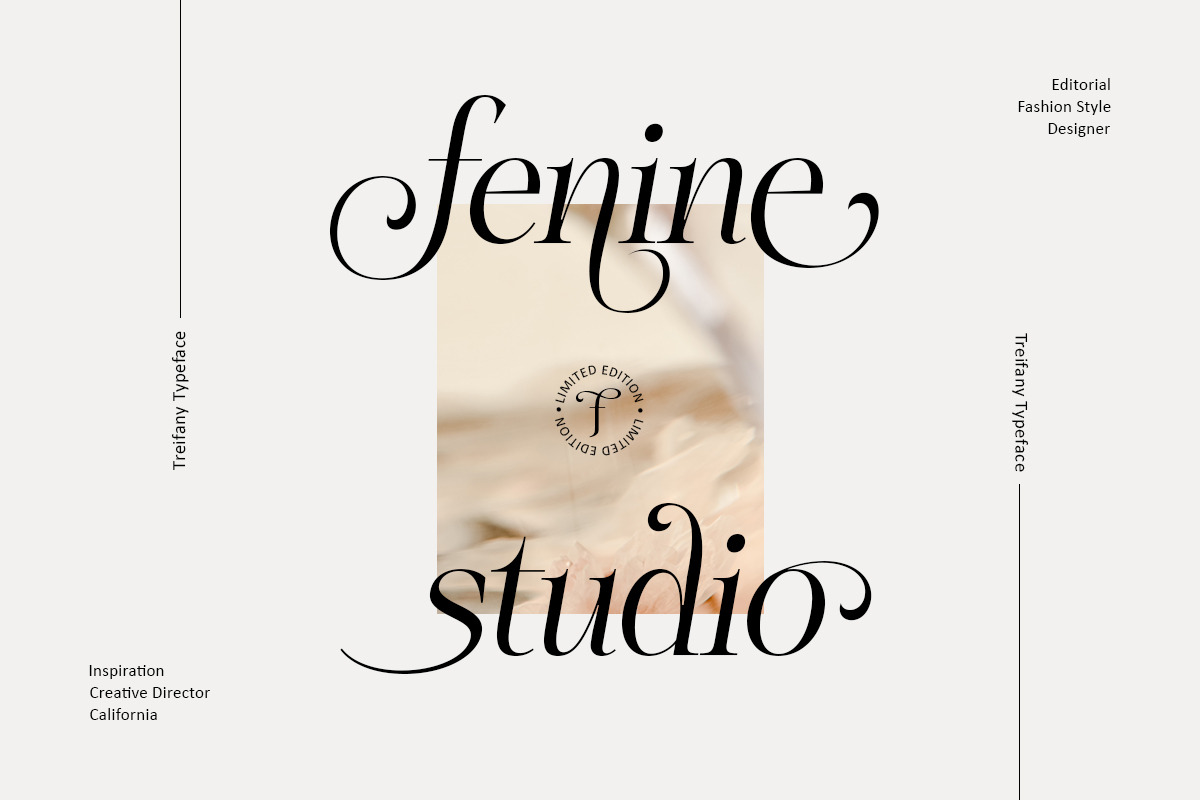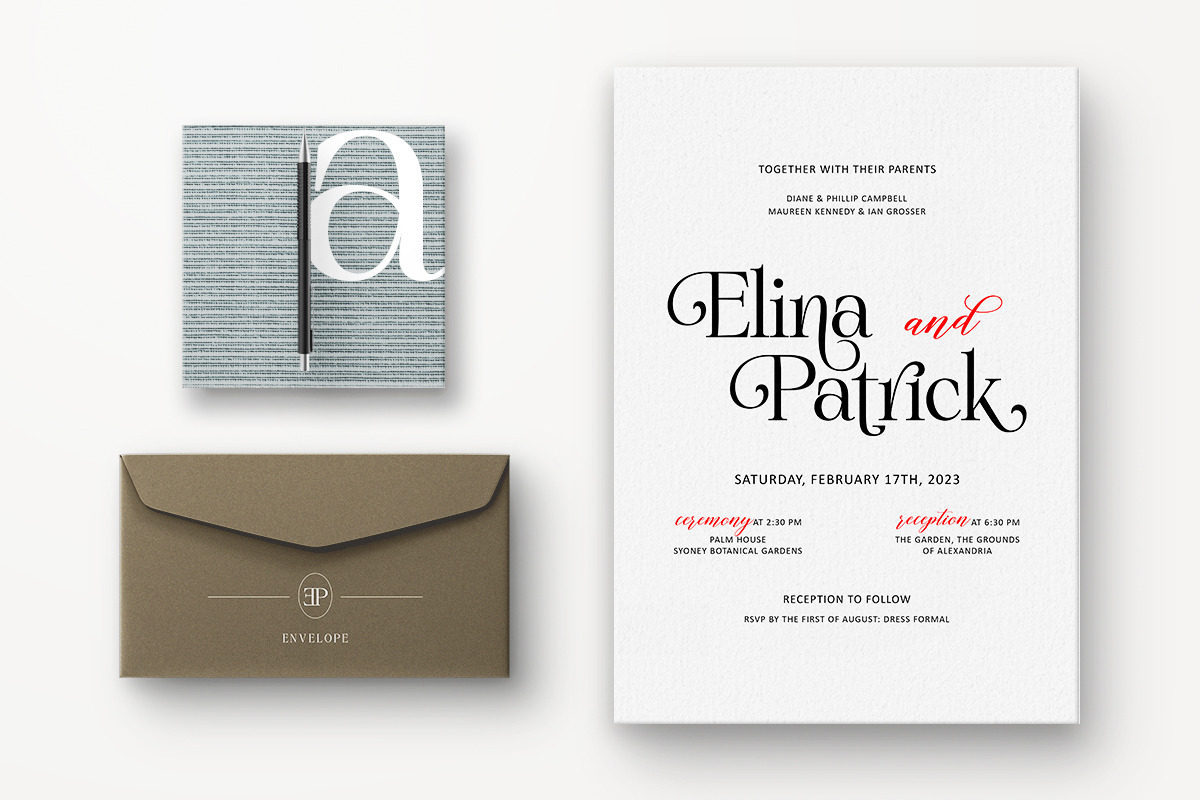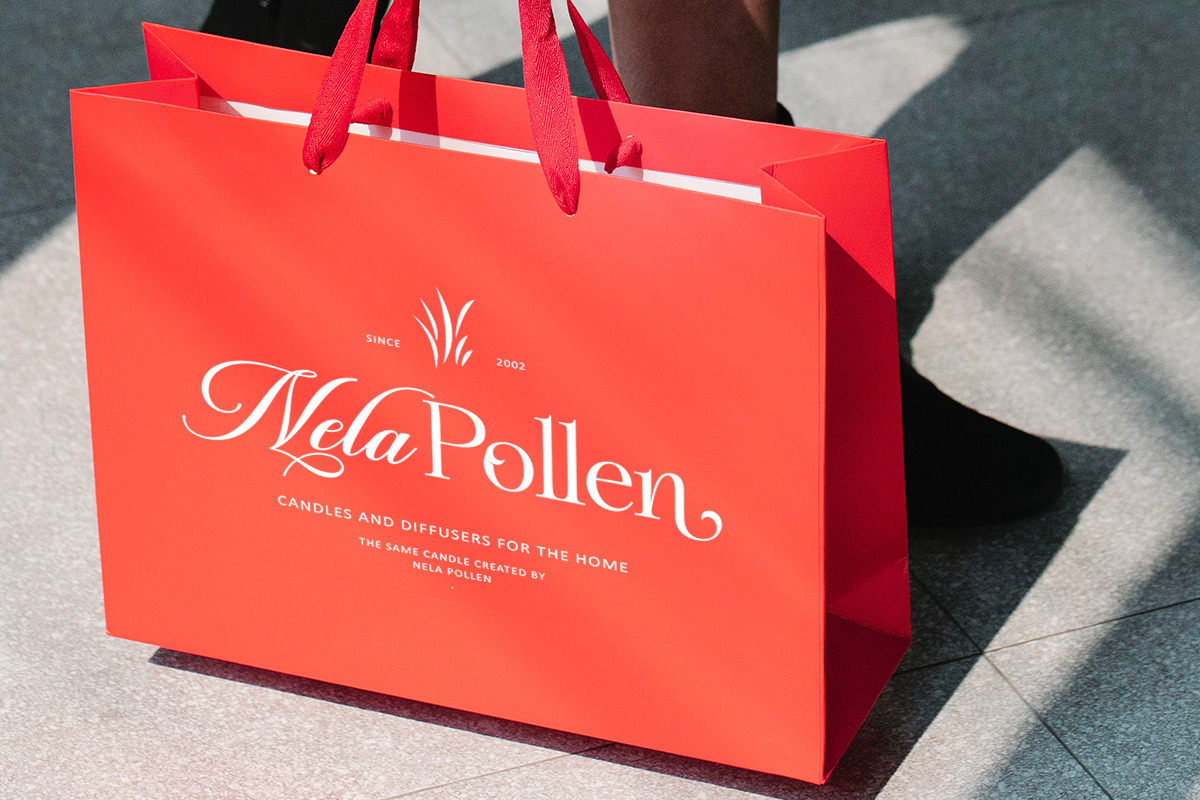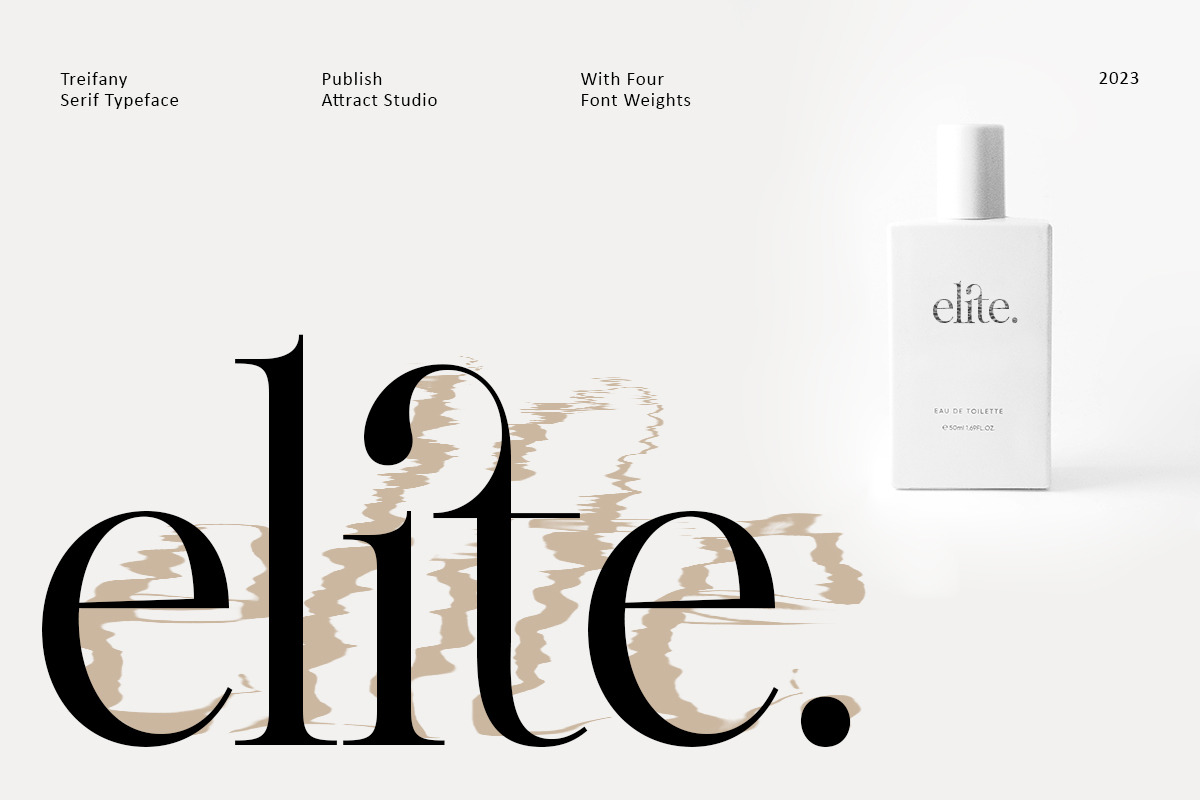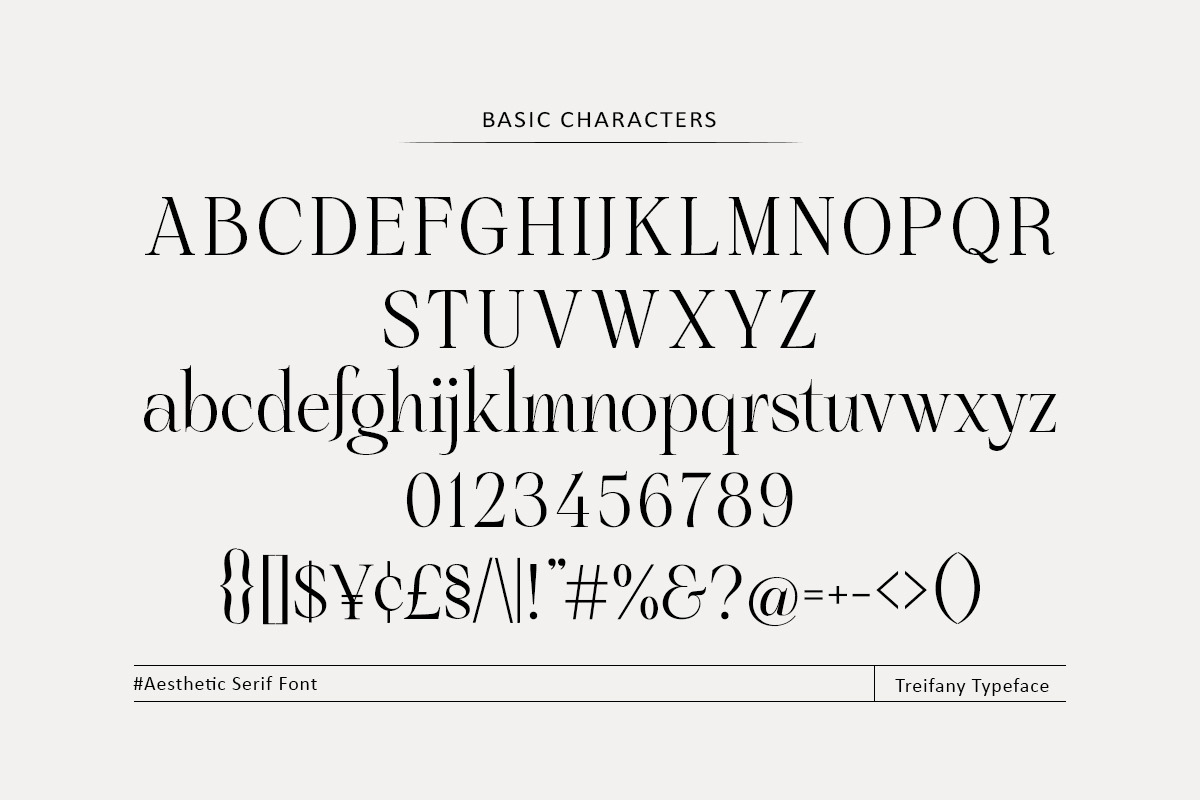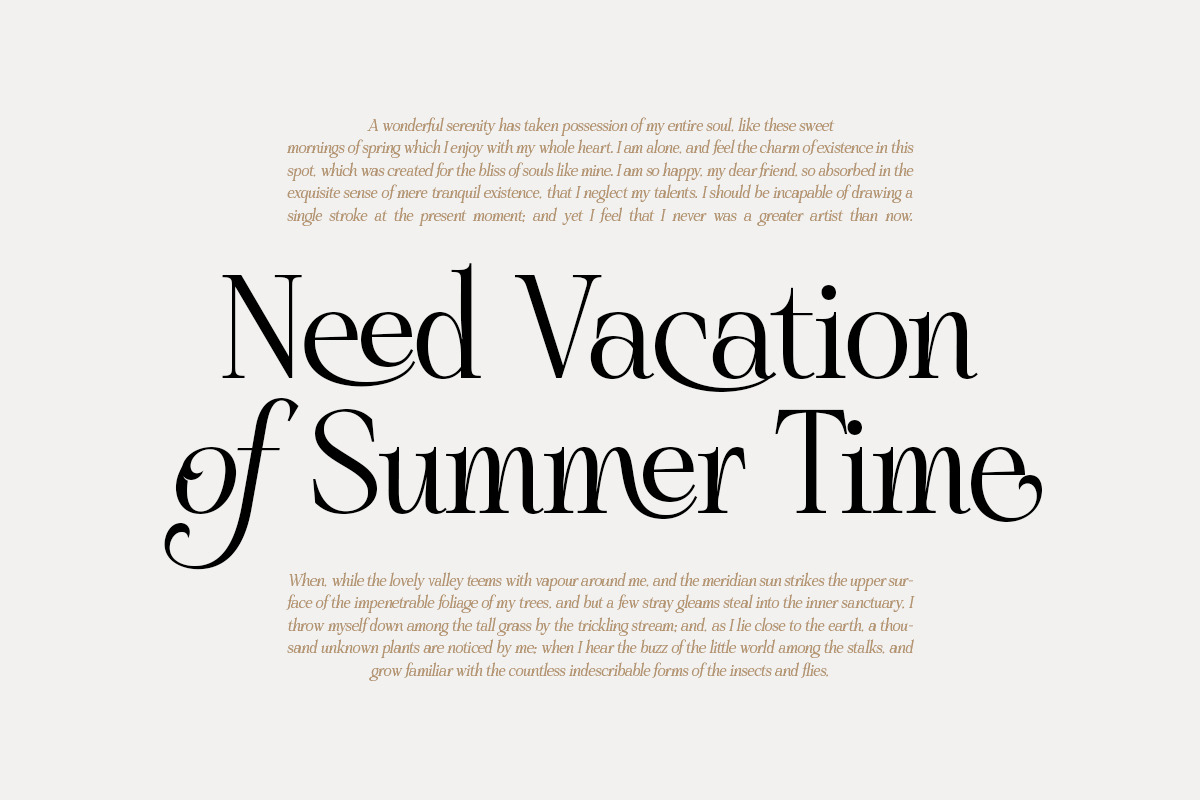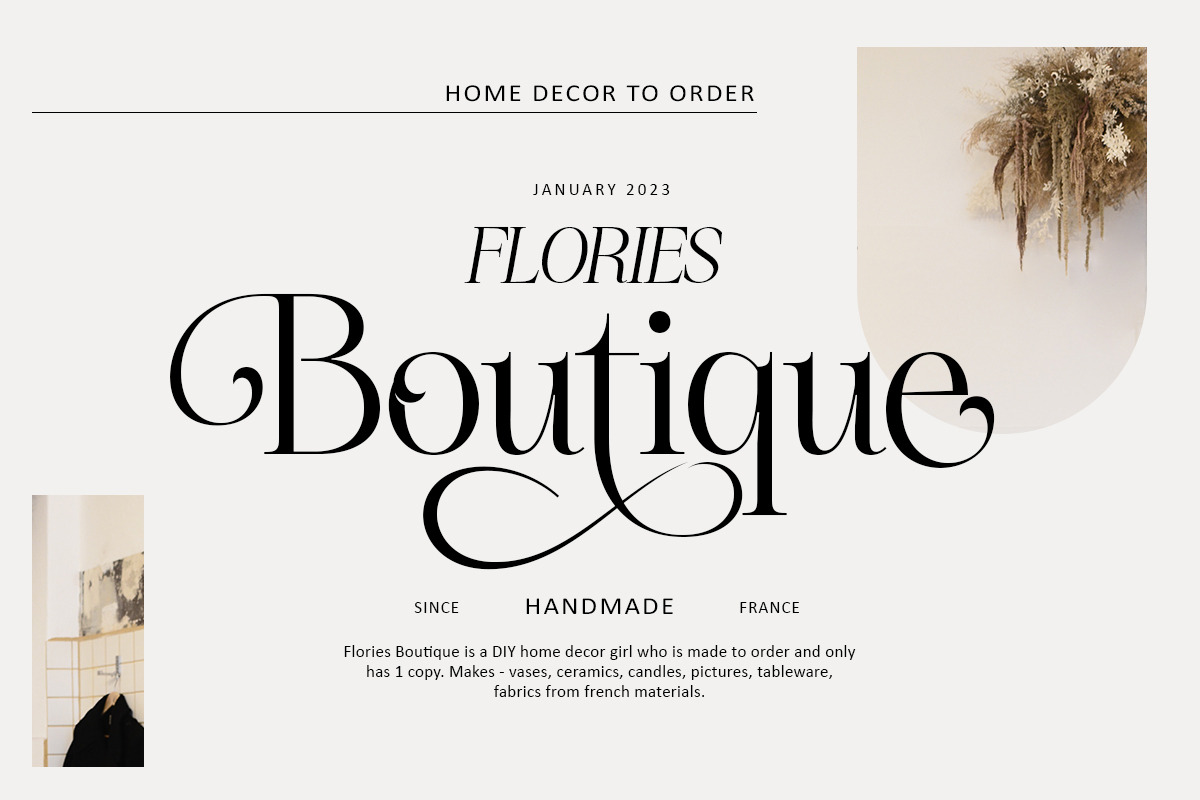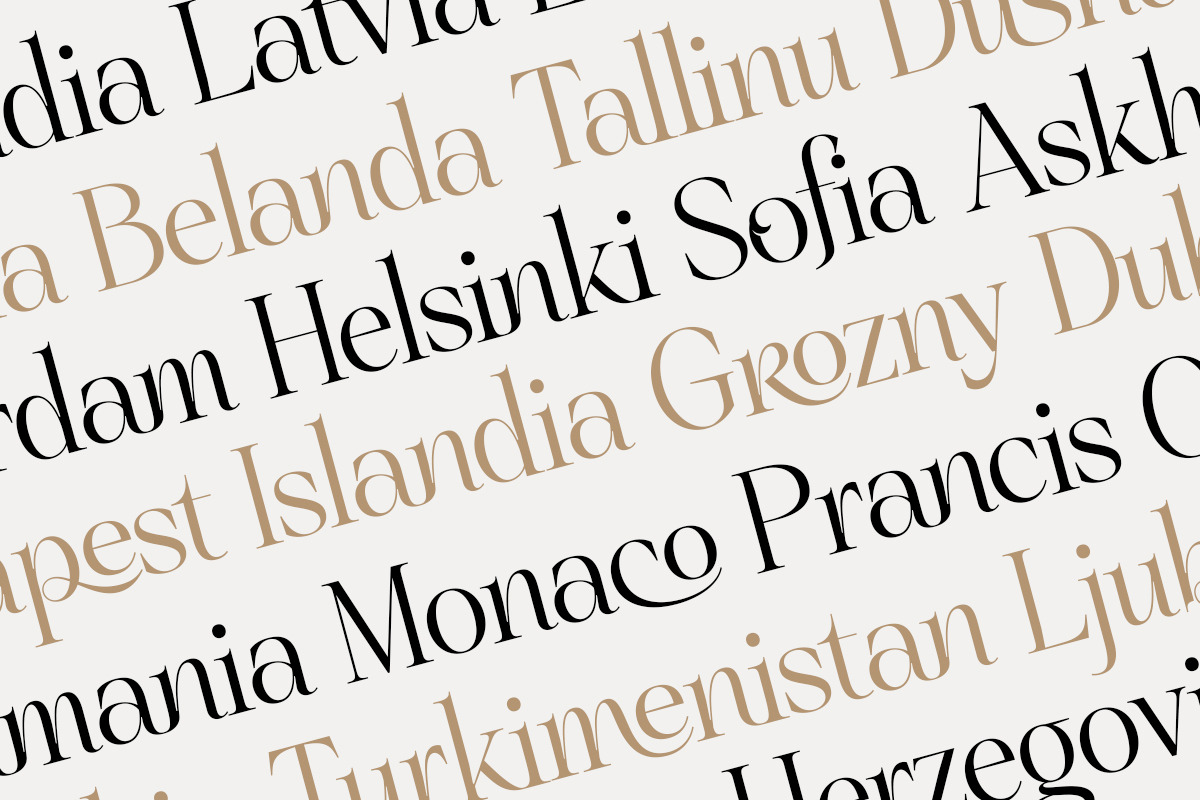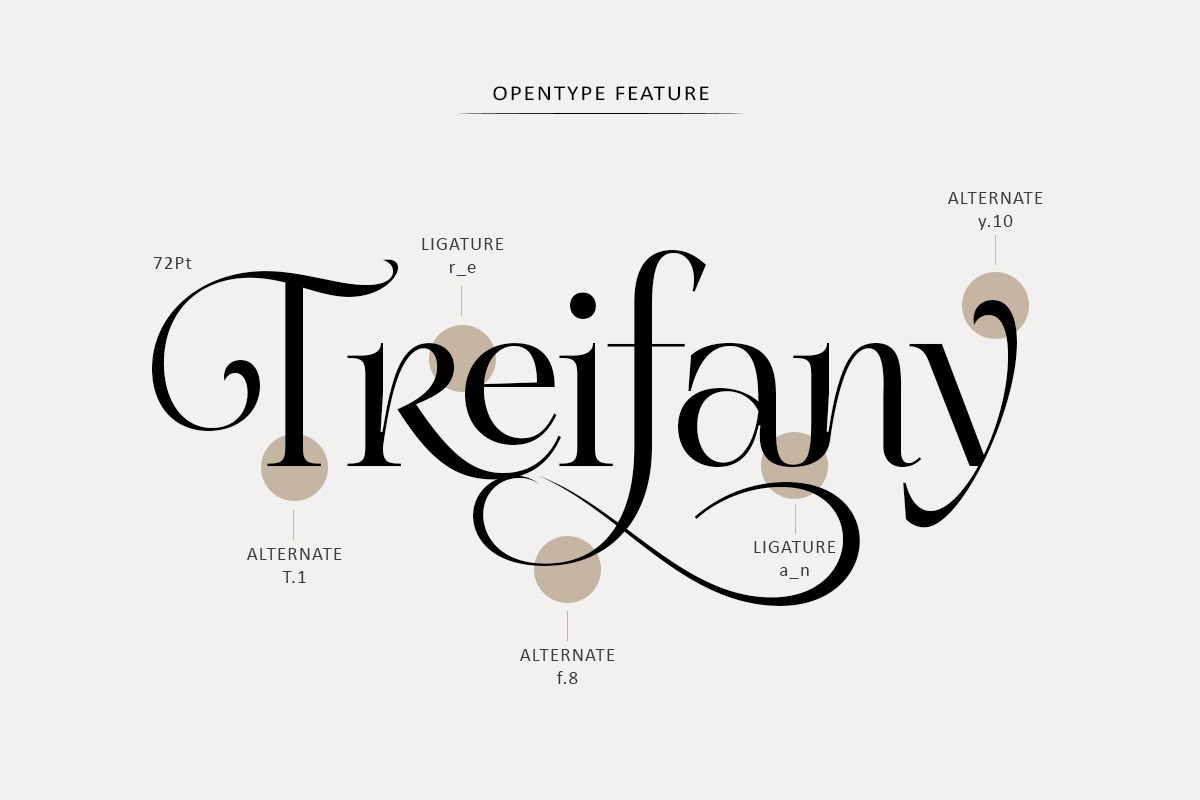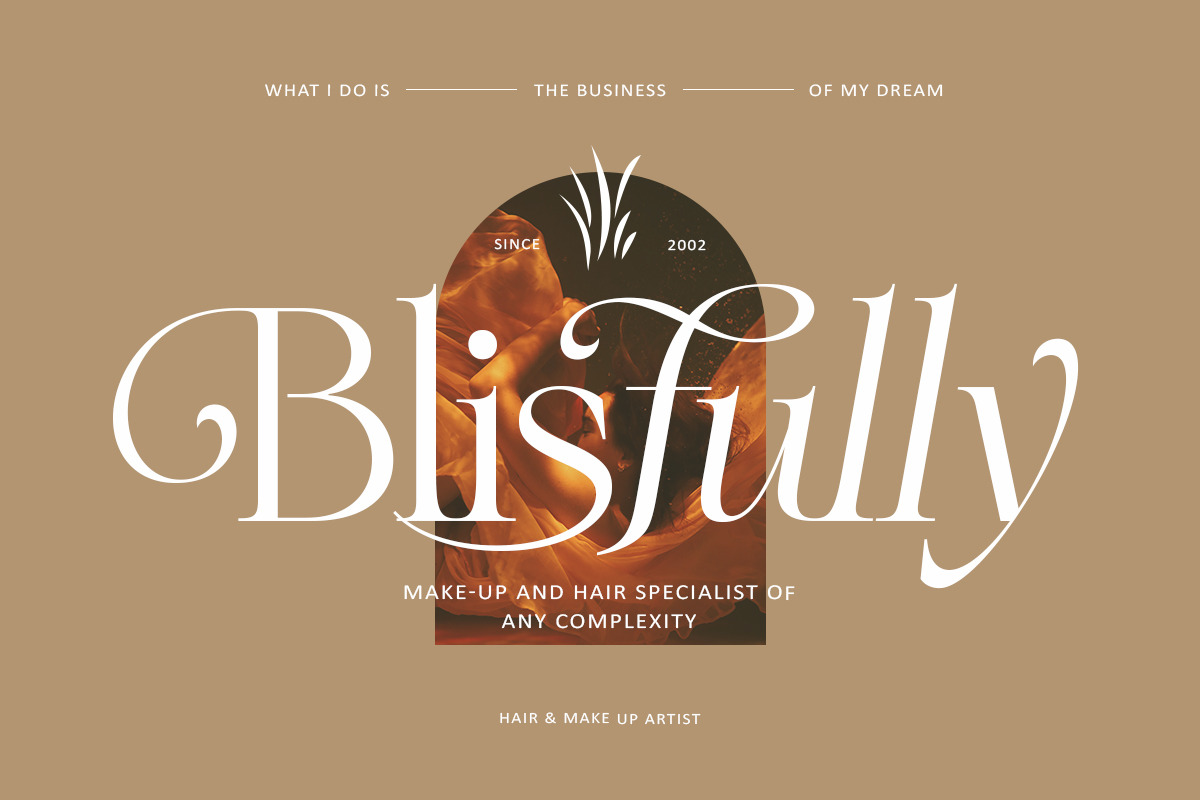
Treifany
Treifany is an elegant serif font family with an aesthetic style with beautiful ligatures, lots of alternative custom glyphs, and multilingual support. This stylish font family is timeless and cannot be missed in your font collection. Perfect for editorial projects, Logo design, branding, product packaging, magazine headlines or simply as a stylish text overlay onto any background image.
Including:
- 4 Font Weights
- Alternative Styles & Fasteners
- Multiple Languages Supported